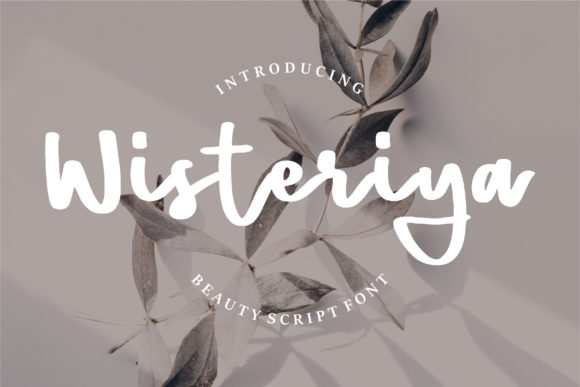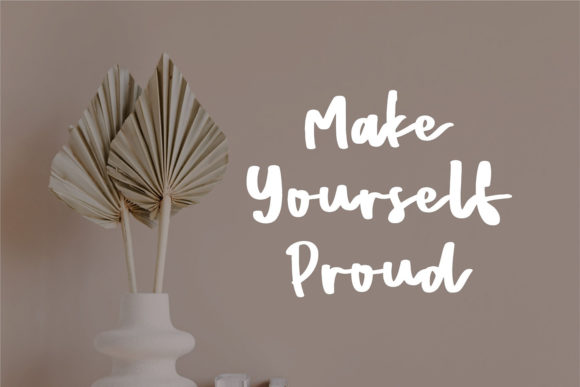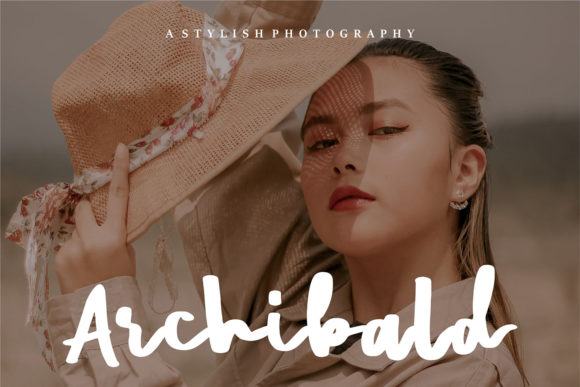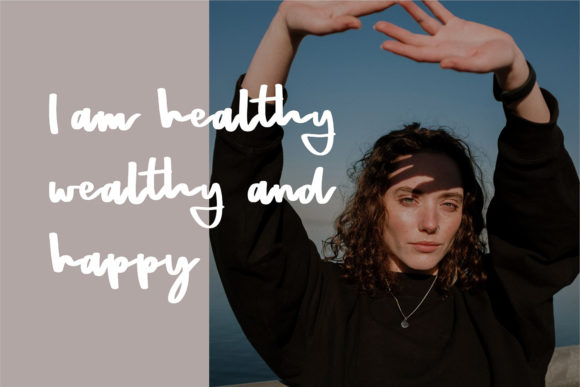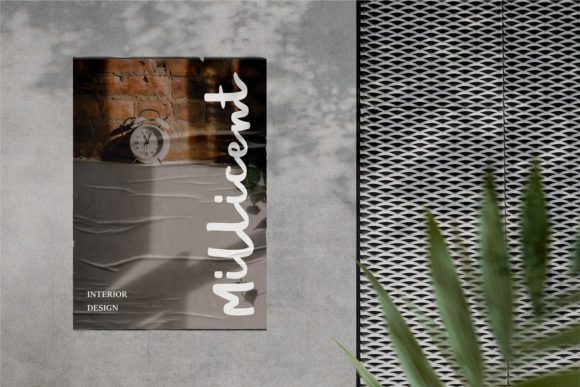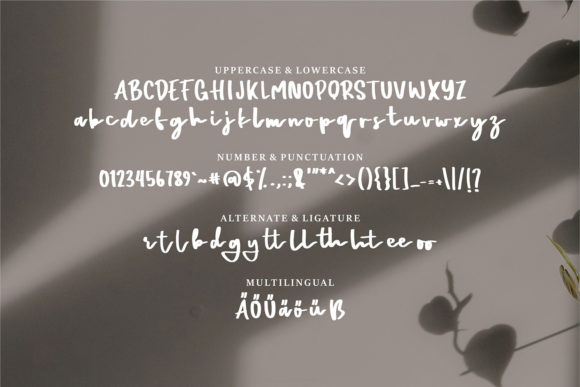
Wisteriya Script Font
About Wisteriya Script Font
**Wisteriya | Beauty Script Font** with a calligraphy style. It looks so beautiful on invitations, greeting cards, branding materials, business cards, quotes, posters, and more!